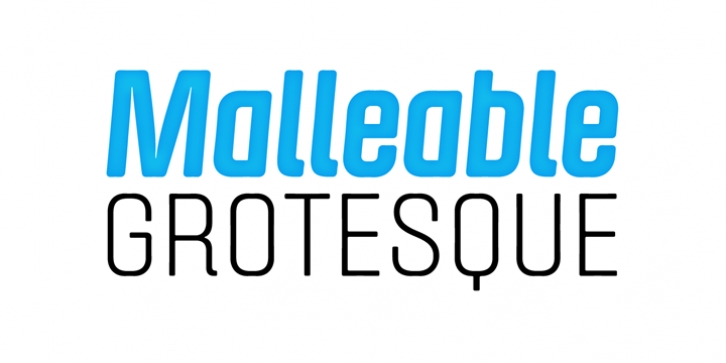
Malleable Grotesque is a 7 weight, 15 font family which explores the soft nature of metals when exposed to high temperatures.
This approach gave way to deep round ink traps, con-caved stems, and an overall rounded finish. These subtle nuances provides an overall approachability to a modular semi geometric based typeface.